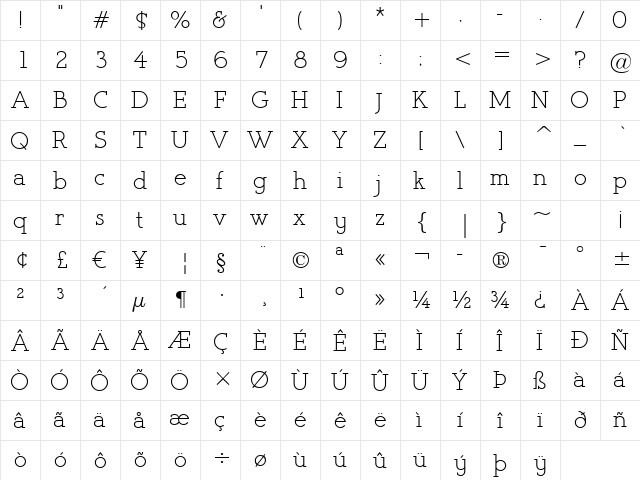
Register Serif BTN Regular
Design Context for Register Serif BTN Typeface
Register Serif BTN brings classic typographic sensibility to the table — its serifs and measured letterforms reflect centuries of print heritage.
Pro Tip: Set Register Serif BTN with slightly loose tracking in headlines to let each letterform's detail read clearly at display sizes.